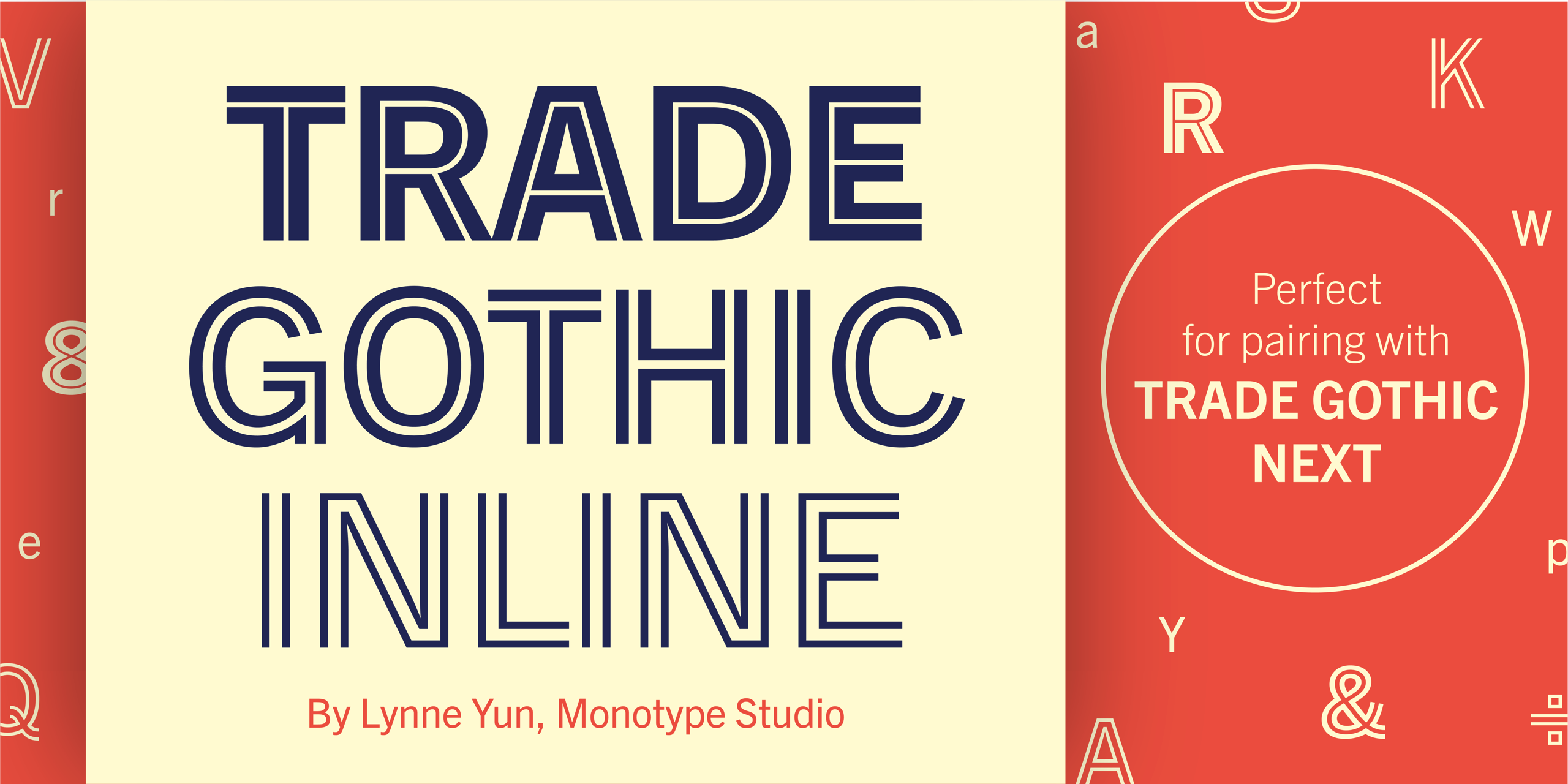
Trade Gothic Inline Font is ideal for industrial design branding, manufacturing company logos, mechanical engineering presentations, trade show exhibitions, construction industry marketing, technical documentation headers, industrial equipment catalogs, professional trade publications, commercial signage systems, and robust projects that demand authoritative presence and industrial strength with functional clarity and commercial reliability.
What makes Trade Gothic Inline Font so exciting is its distinctive industrial character through outlined letterforms that combine the authoritative strength of Trade Gothic with striking visual contrast and dimensional depth. This typeface embodies commercial efficiency and industrial precision, featuring bold inline construction and mechanical details that suggest blueprint drawings while maintaining exceptional readability for contemporary business applications requiring both impact and professional credibility.
Trade Gothic Inline Font family encompasses multiple industrial variations: Regular, Bold, Light, Condensed, Extended, Heavy, Medium, and Commercial versions. Each style maintains the font's inherent trade-focused character while offering different levels of industrial strength and commercial appeal, providing designers with comprehensive tools for creating authentic business aesthetics that resonate with professional audiences seeking reliable commercial solutions.
The commercial authority of Trade Gothic Inline Font Free Download makes it exceptionally valuable for industrial and manufacturing industries requiring strong visual communication and professional credibility. This font successfully communicates reliability and commercial competence, making it perfect for businesses that need to establish authority in trade markets and attract professional clients who demand proven expertise. Its distinctive character works effectively across both digital business platforms and printed commercial materials, while its unique inline design creates immediate recognition among audiences who value industrial quality and seek dependable commercial partnerships with established trade professionals.